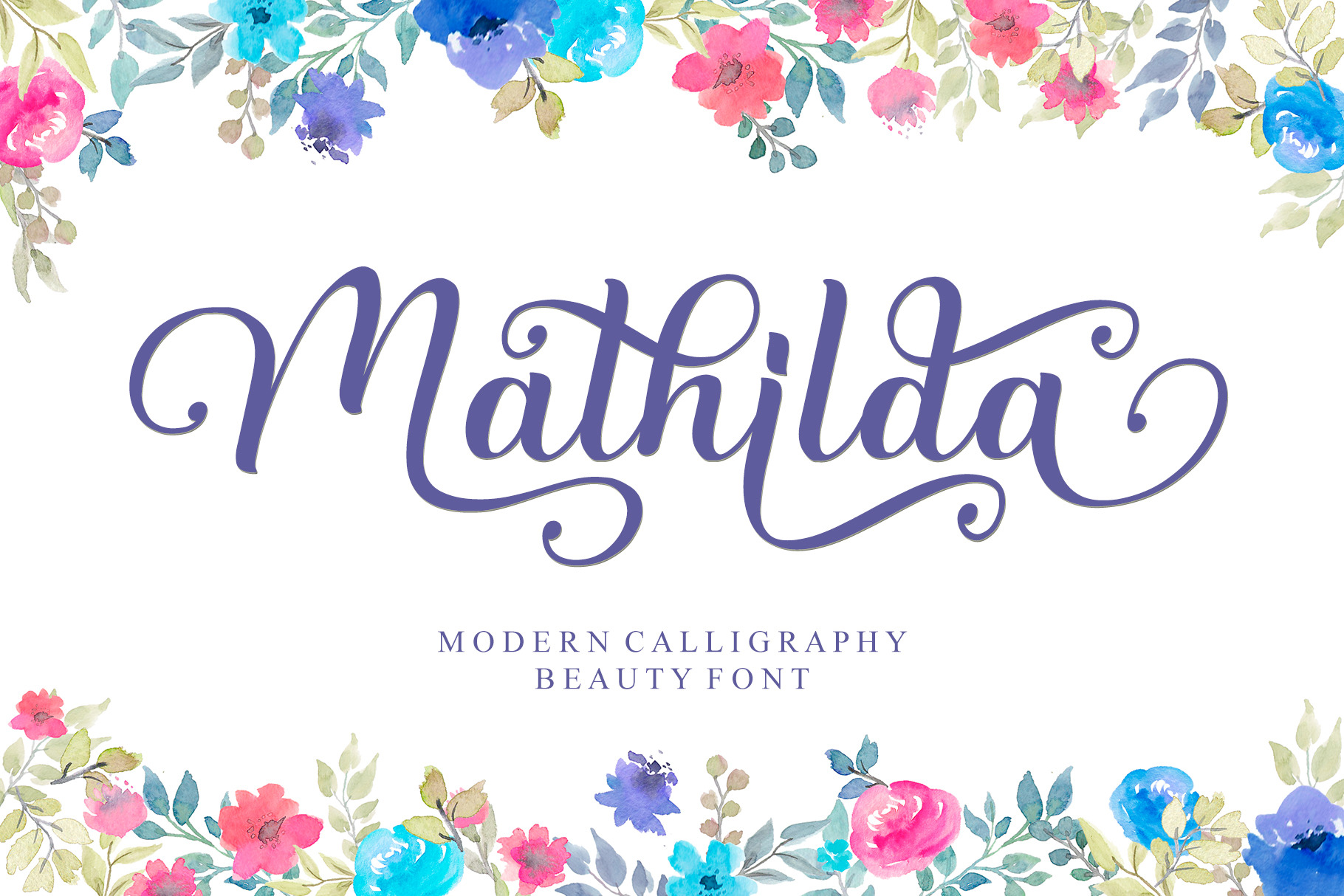
Mathilda - Modern Calligraphy Font
Mathilda is a flowing handwritten font, described by an elegant touch, perfect for your favorite projects. This font is PUA encoded which means you can access all of the glyphs and swashes with ease!